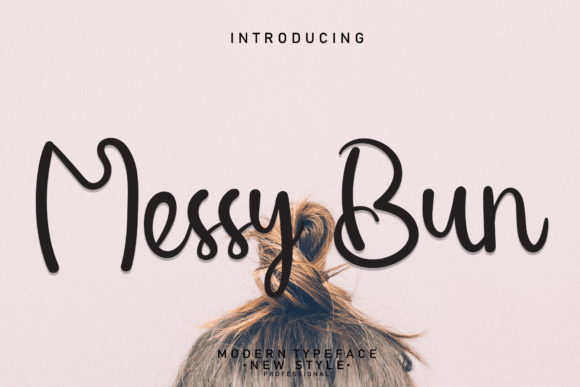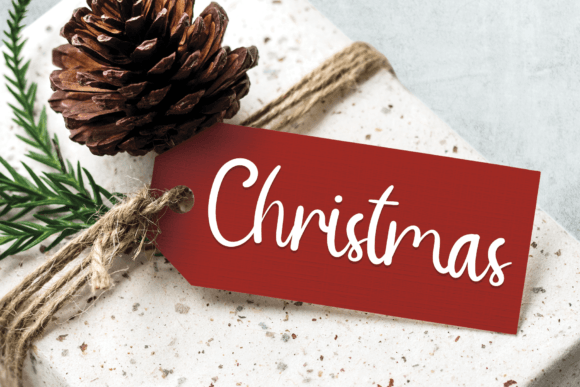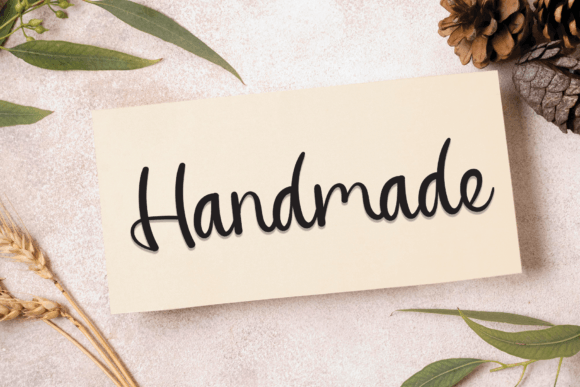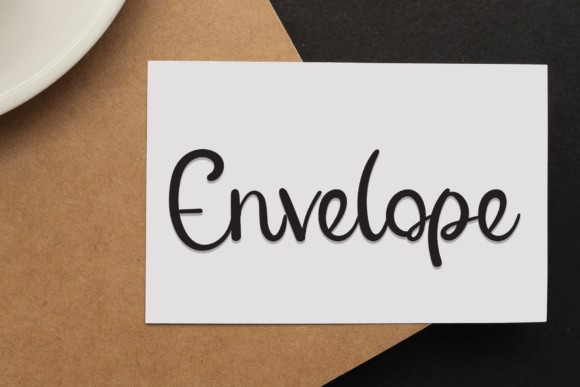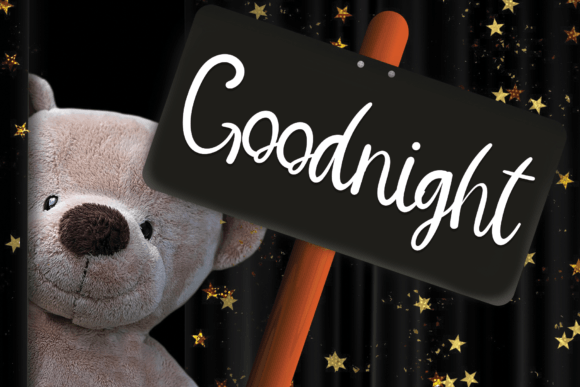
Messy Bun Font
About Messy Bun Font
The Messy Bun Font Download is a fun and friendly handwritten typeface designed to add charm, personality, and playfulness to any project. Its casual strokes and smooth handwritten flow give it a natural look that feels personal yet professional. As a result, it’s an excellent choice for both creative and business projects.
Moreover, Messy Bun is a versatile font that adapts easily to different media. Whether you’re designing greeting cards, creating branding materials, or working on social media graphics, this font delivers elegance and approachability at the same time. In addition, its readability makes it suitable for both headlines and small text details.
Features of Messy Bun Font
When you choose the Messy Bun Font Download, you’ll benefit from:
• A playful and friendly handwritten style
• Smooth curves that create a natural flow
• Balanced characters for polished results
• Great readability across digital and print designs
• A versatile design for personal and professional projects
Best Uses for Messy Bun Font
The Messy Bun Font Download is perfect for a variety of creative applications. For example, it can be used in:
• Greeting cards and invitations – Add a heartfelt and playful touch
• Craft projects – Enhance DIY designs with personality and fun
• Logos and branding – Perfect for lifestyle, fashion, or handmade businesses
• Social media graphics – Eye-catching posts for Instagram, Pinterest, and blogs
• Event posters and flyers – Bold and stylish typography that grabs attention
• Stationery and product packaging – Add a casual yet refined look to your items
Because it blends charm with versatility, Messy Bun quickly becomes a go-to font for designers across different industries.
Why Choose Messy Bun Font
The Messy Bun Font Download stands out from ordinary handwritten fonts because it combines fun and elegance in a balanced way. Its casual handwritten strokes feel authentic, while its clean design ensures professional results. In addition, it can be used across a wide range of projects, from business branding to personal crafts.
Furthermore, its beginner-friendly nature makes it easy to use, while its polished details satisfy professional designers. As a result, it provides reliability, flexibility, and creativity all at once.
In conclusion, the Messy Bun Font Download is a fun, friendly, and versatile handwritten typeface that enhances any design. From greeting cards and invitations to branding and social media, it adds warmth and a natural handwritten touch to your work.